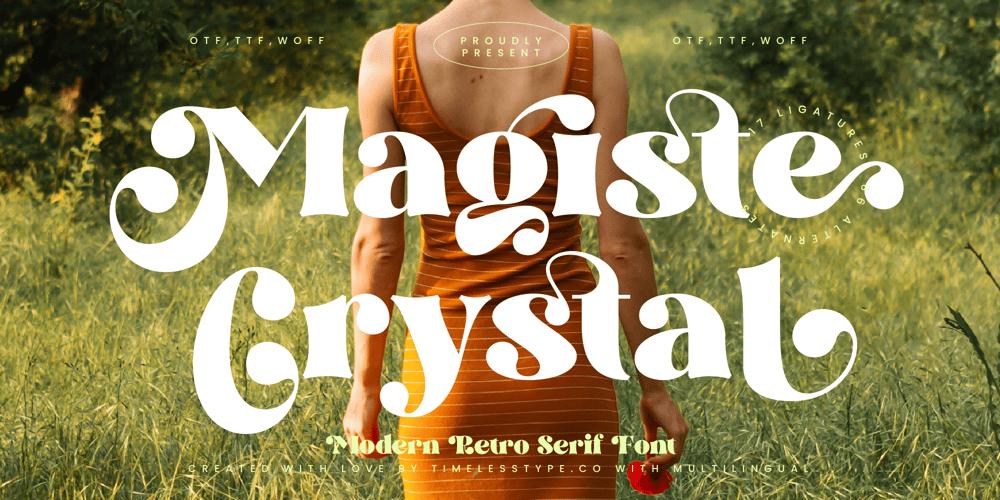
Magiste Crystal Font Family was designed by Heru Utama Putra and published by Timelesstype Studio. Magiste Crystal contains 2 styles and family package options. Magiste Crystal – Modern Retro Serif Font , from Timelesstype , Suitable for any projects such as: logos, branding projects, homeware designs, product packaging, mugs, quotes, posters, shopping bags, t-shirts, book covers, name card, invitation cards, greeting cards, label, photography, watermark, special events, and all your other luxury and beautiful projects that need a Luxury Serif taste.